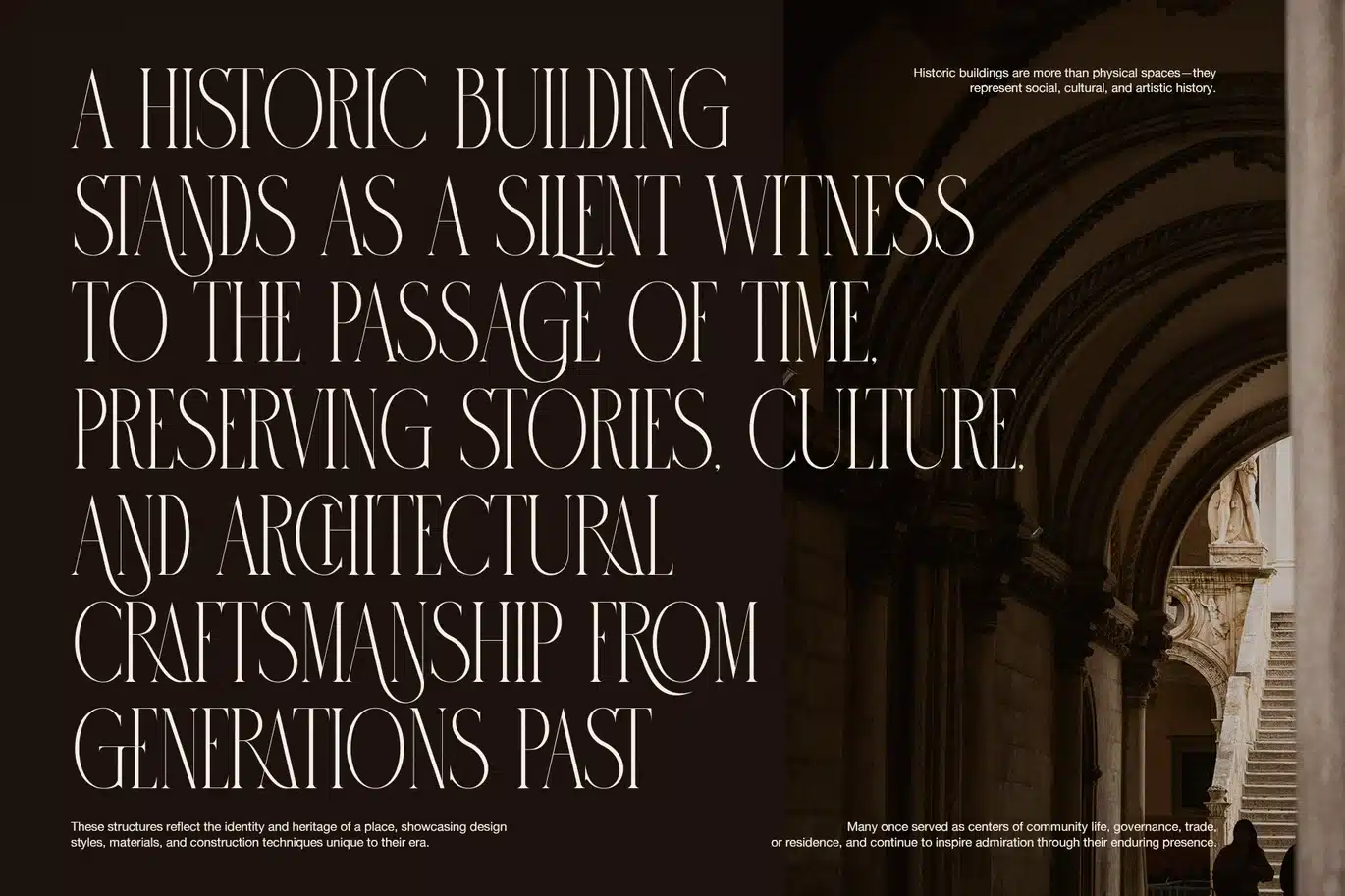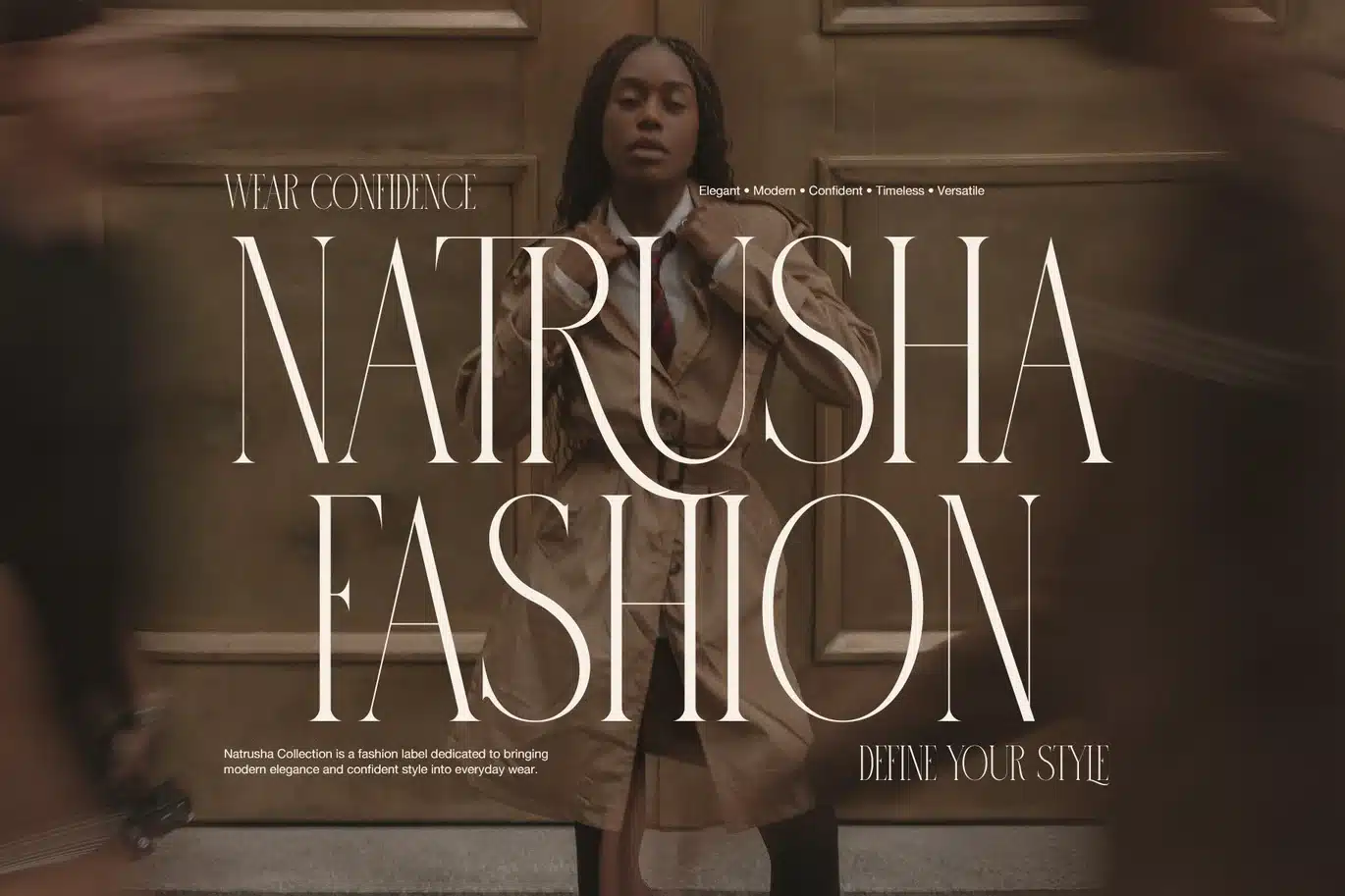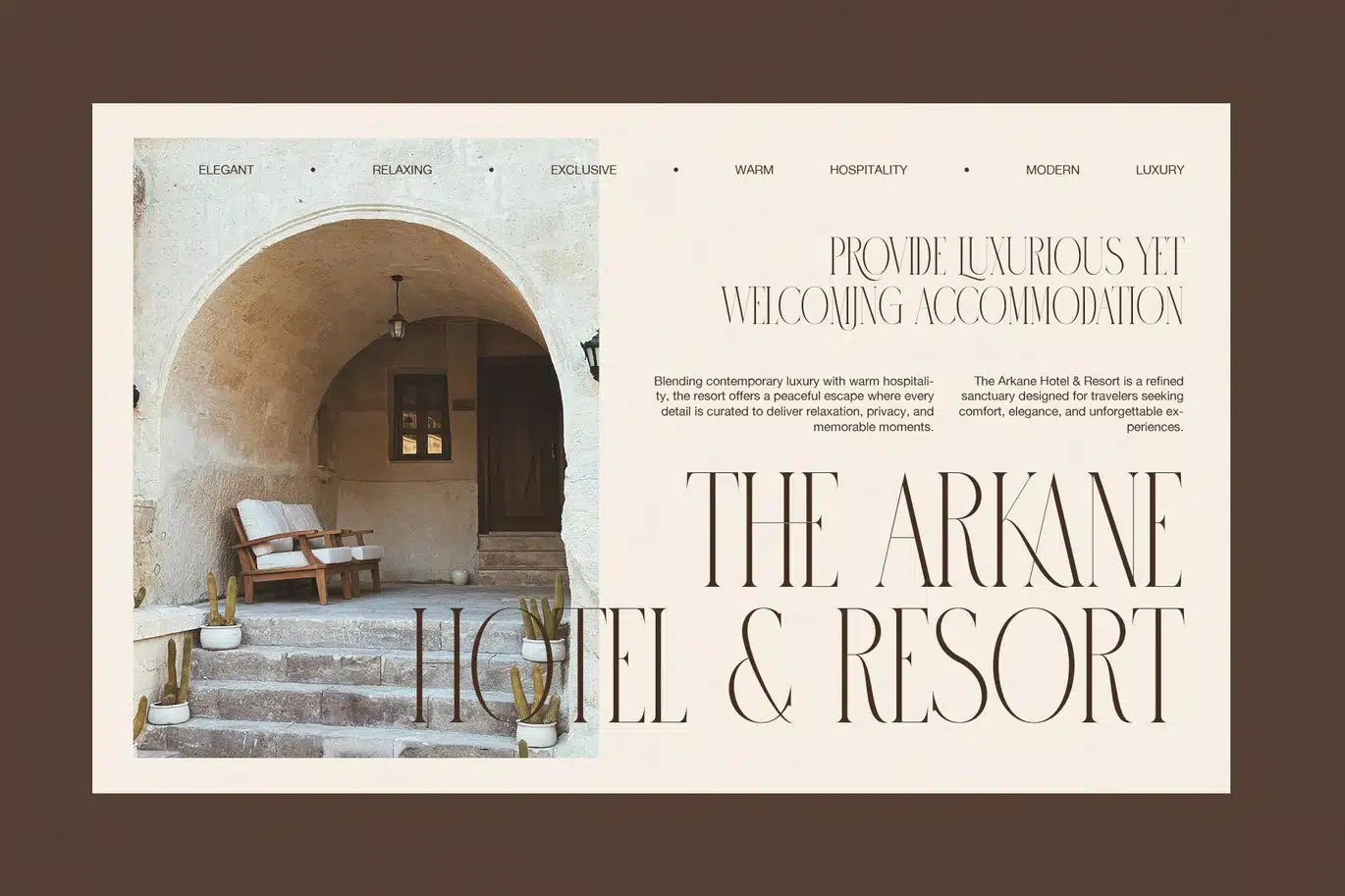
Michole Elegant Serif Font
Michole Font Style
Michole is an elegant serif font with a slim, graceful, and modern look. It blends tall letterforms, fine stroke contrast, and soft curves into a style that feels calm, refined, and luxurious. At first glance, the font looks clean and high end. However, it also carries a gentle warmth, so it feels inviting as well as stylish.
The beauty of Michole comes from its narrow shape and long vertical rhythm. Each letter looks neat and balanced, while the thin serif details give the font a polished finish. In addition, the curved forms add softness to the overall look. Because of that, Michole feels both timeless and fresh.
Shape and Visual Character
Michole has a strong display presence. The uppercase set looks tall, airy, and very elegant, so headlines appear dramatic without feeling heavy. At the same time, the lowercase letters keep the design readable and smooth. Moreover, the ligatures add a custom touch that helps words feel more refined and more exclusive.
This font works well when a design needs a quiet luxury mood. Rather than looking loud, Michole creates beauty through proportion, spacing, and subtle detail. Therefore, it is a very useful serif font for designers who want a classic feel with a modern finish.
Best Uses for Michole
Michole is made for branding and display work that needs elegance. It looks beautiful in fashion campaigns, hotel branding, editorial titles, luxury packaging, resort identities, design agency logos, and beauty product visuals. In addition, it fits lookbooks, portfolio covers, invitation layouts, and social media posts.
Michole is a great choice for:
- fashion branding
- luxury hotel identities
- editorial headlines
- beauty packaging
- resort promotions
- design agency branding
- portfolio layouts
- social media graphics
Michole offers more than a lovely style. It gives designers clean uppercase letters, refined lowercase forms, elegant ligatures, useful punctuation, and clear numbers for many creative needs. As a result, the font helps text feel premium, stylish, and memorable.
Even better, Michole moves easily across many themes. It can feel polished for hospitality, modern for fashion, and graceful for lifestyle branding. Because of that, this elegant serif font is flexible for many projects. If you want a serif typeface that feels slender, luxurious, and easy to style, Michole is a smart choice for refined visual branding.